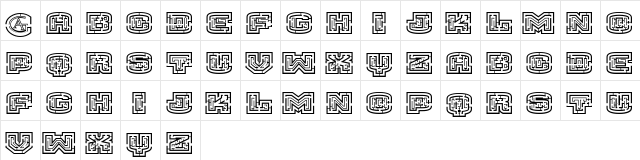
Nicodemus Regular
Design Context for Nicodemus Typeface
Nicodemus uses fixed-width spacing throughout, giving it the structured, systematic character associated with coding environments and technical documentation.
Well-suited to data-driven dashboards, coding tutorials, and any design that wants to reference the world of programming.
Pro Tip: Use Nicodemus with slightly increased line-height for extended reading — fixed-width spacing can feel dense in longer passages without extra breathing room.